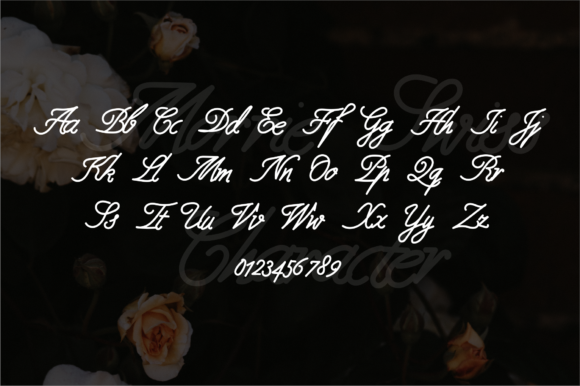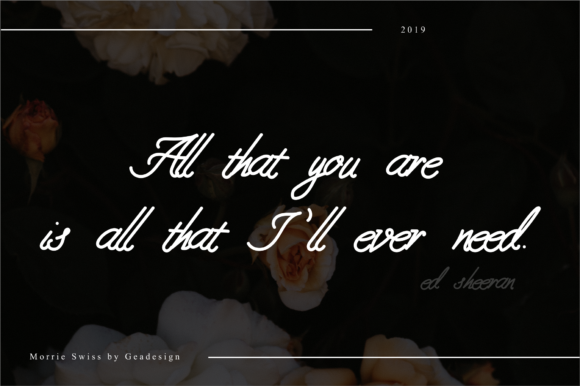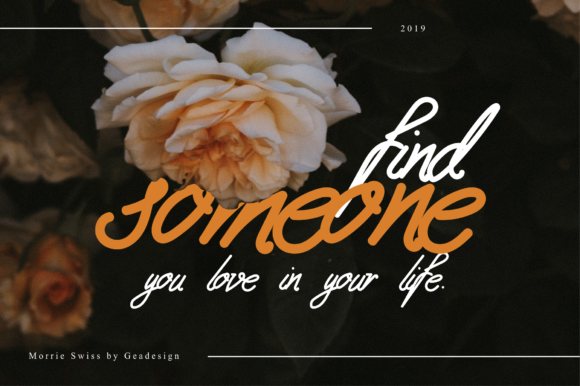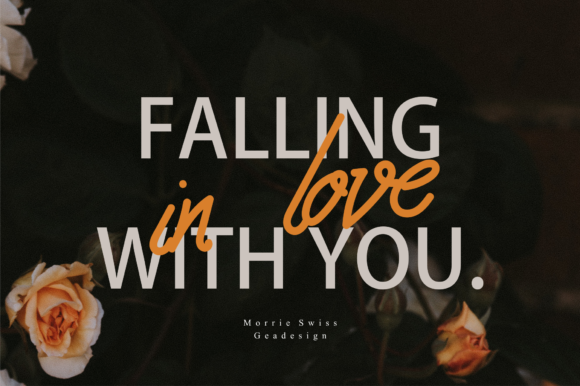
HomeScript FontsMorrie Swiss Font Script Fonts Morrie Swiss Font FacebookXPinterestWhatsApp Morrie Swiss Font Poster 2 Morrie Swiss Font Poster 3 Morrie Swiss Font Poster 4 Morrie Swiss Font Poster 5 About Morrie Swiss Font Morrie Swiss is a cool, simple and elegant handwritten font. It will add an authentic touch to any design idea! DOWNLOAD ON CREATIVE FABRICAThis font is sold and delivered by Creative Fabrica. Font Canyon may earn a commission if you buy through this link. People also explored Love Story Font Sundiary Font Amega Font Lotherday Font Hakatta Signature Font Dairy Milk Font Ricotta Font Homesteader JNL Font Bettyna Font 346 0 TagsMorrie Swiss Font Previous articleState Moques FontNext articleGrillinea Font LEAVE A REPLY Cancel reply Comment: Please enter your comment! Name:* Please enter your name here Email:* You have entered an incorrect email address! Please enter your email address here Website: Save my name, email, and website in this browser for the next time I comment. Personal Use Free Astercla Personal Use Free Read more about this font Rocketto Personal Use Free Read more about this font Castina Personal Use Free Read more about this font Happy Camping Personal Use Free Read more about this font BLOG Top 7 Google Fonts Alternatives for Faster and Privacy-Friendly Web Design (2025) Top 7 Google Fonts Alternatives for Faster and Privacy-Friendly Web Design (2025) When it comes to web typography, Google Fonts has long been the go-to... Exploring Font Trends Where to Buy American Fonts Online in 2024 Free vs Paid Fonts: Why Investing in Premium Fonts Is Worth It